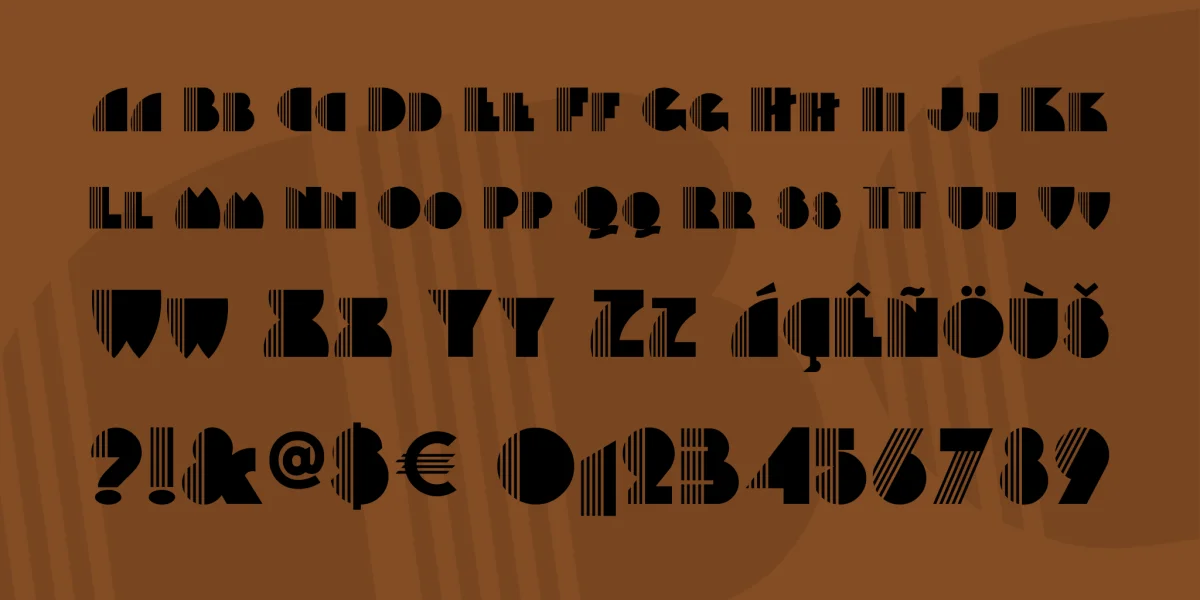
A bold headline fonts with a lot of pizazz — streamlined letterforms with a multiline insert. Great for concerts, spectaculars and upscale promotions. Based loosely on a 60’s Deco Revival font called Bass Rainbow, with some tasty revisions.